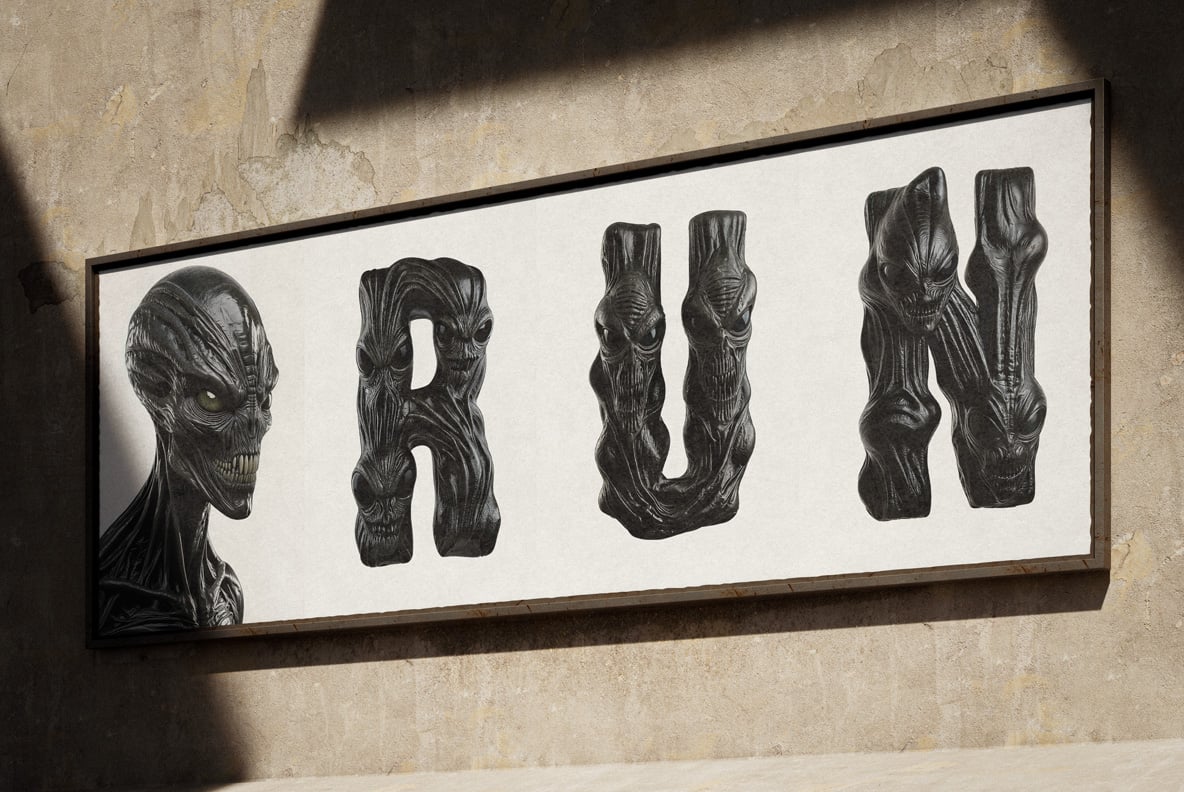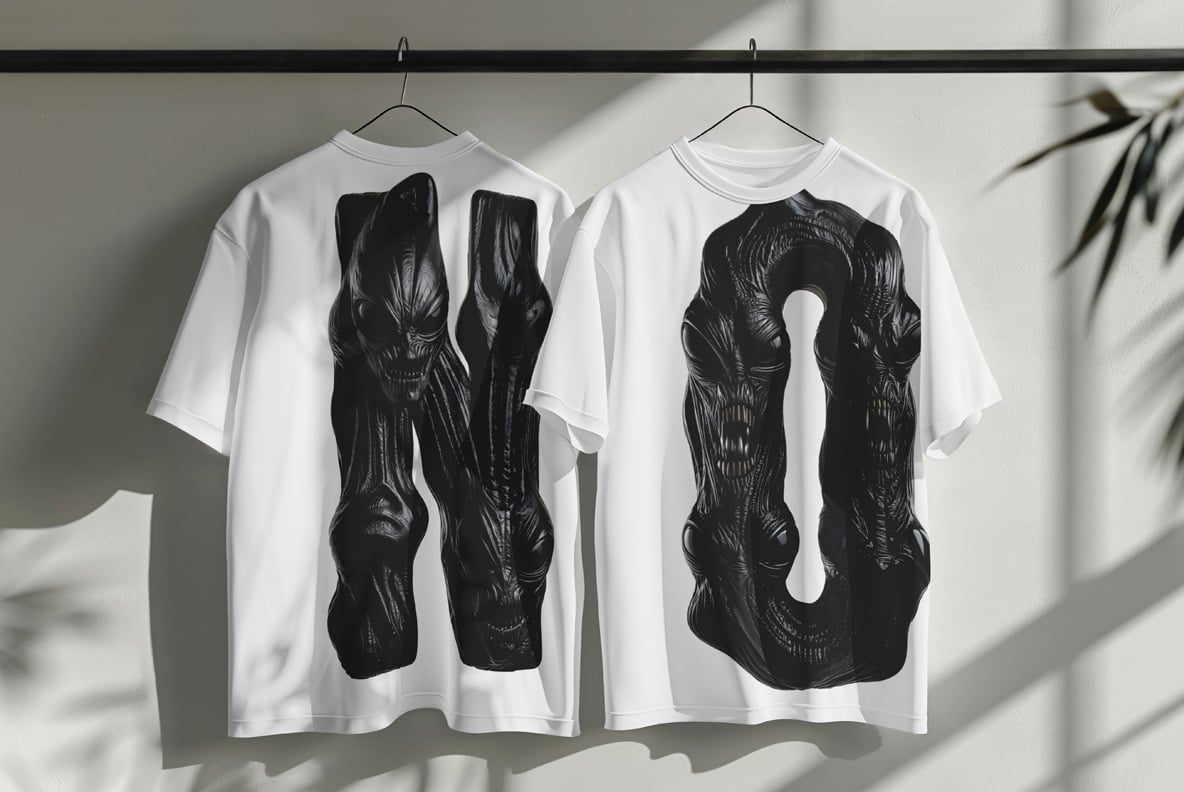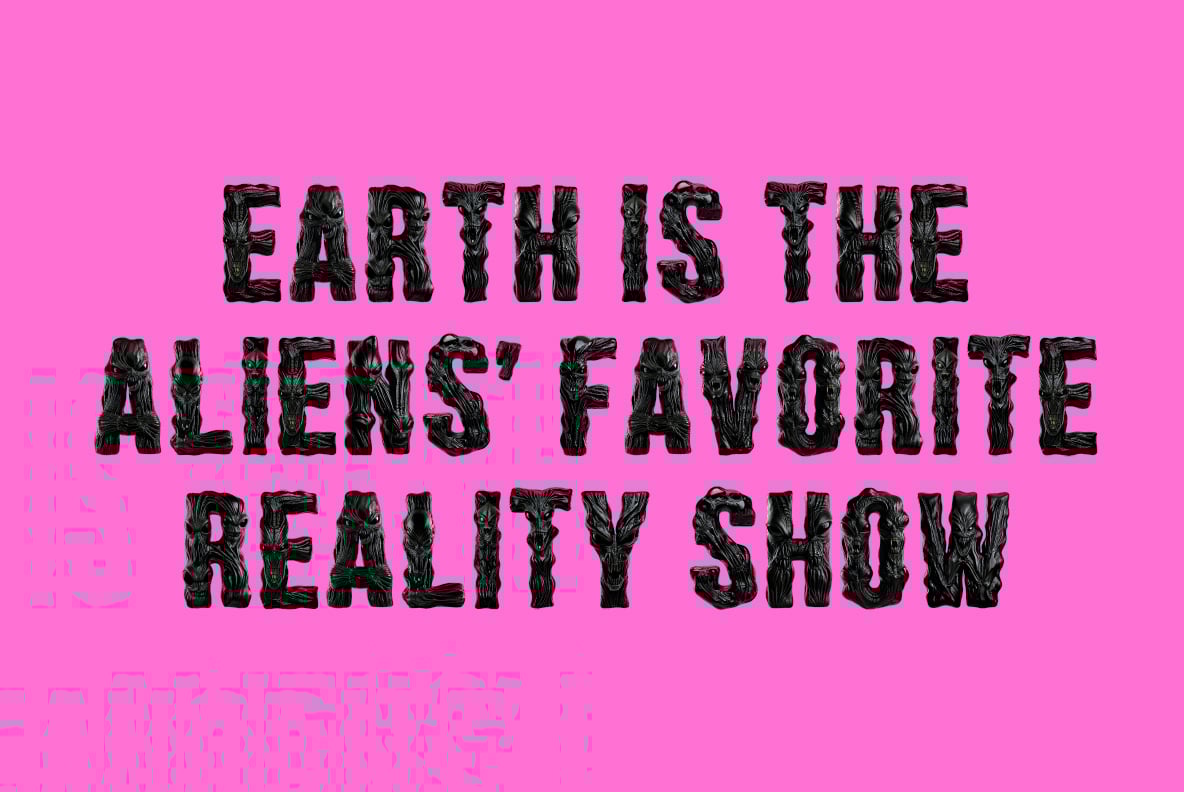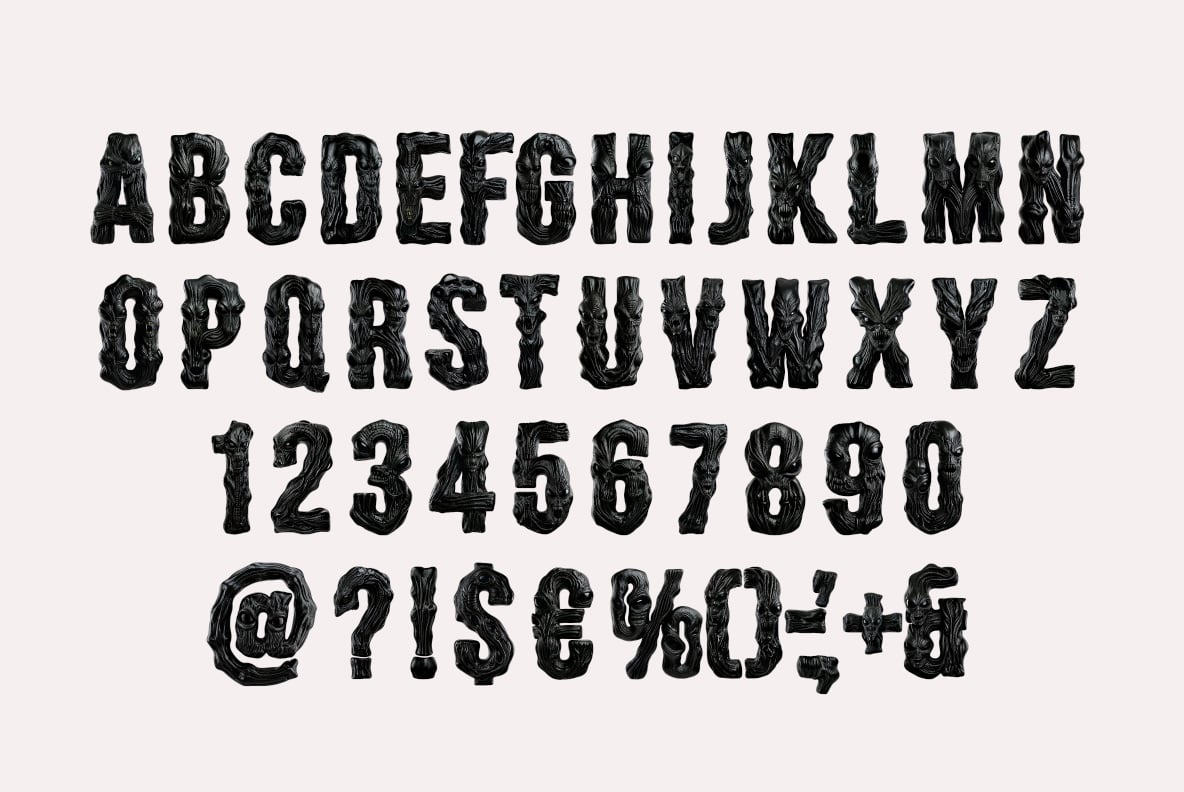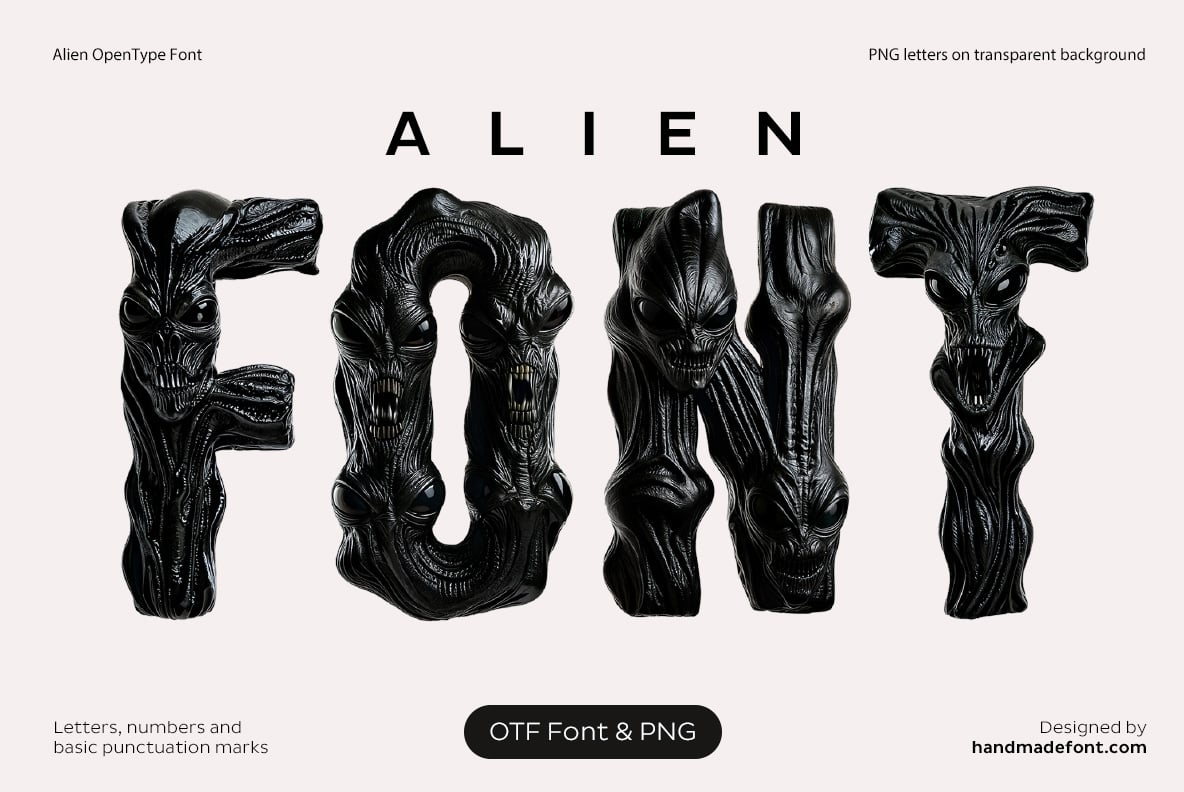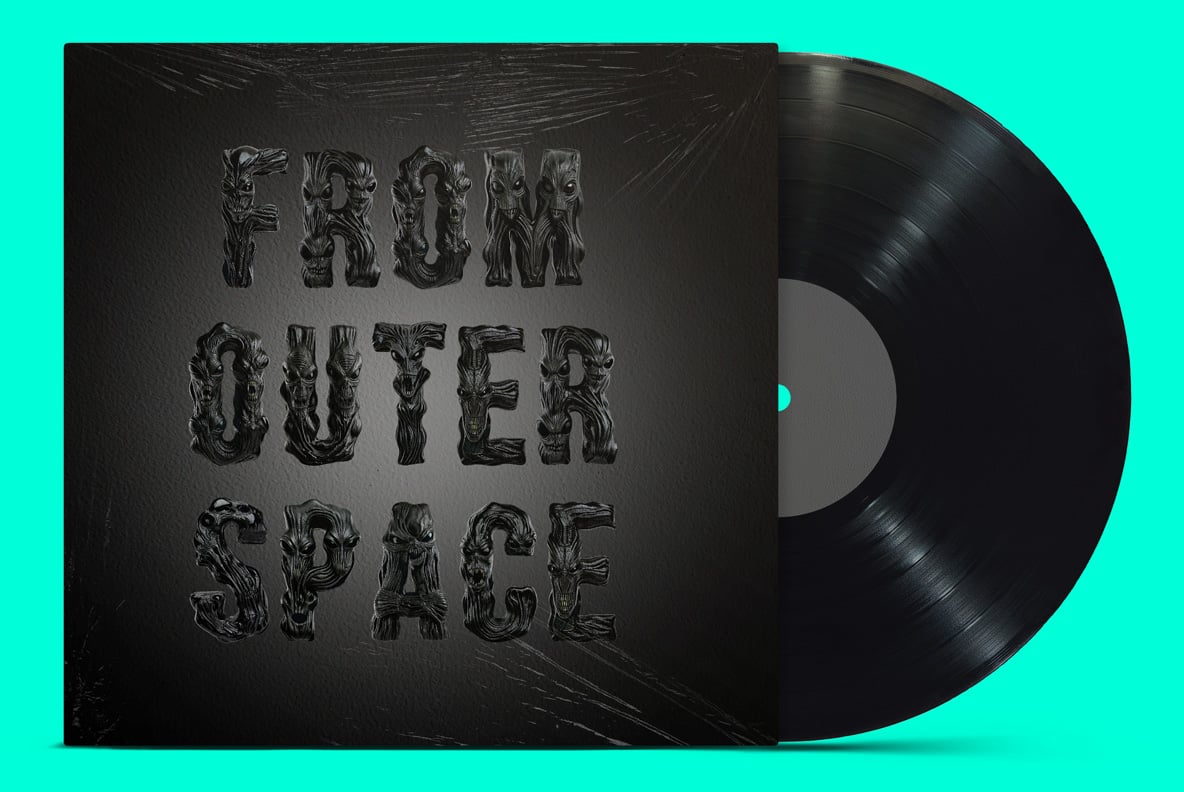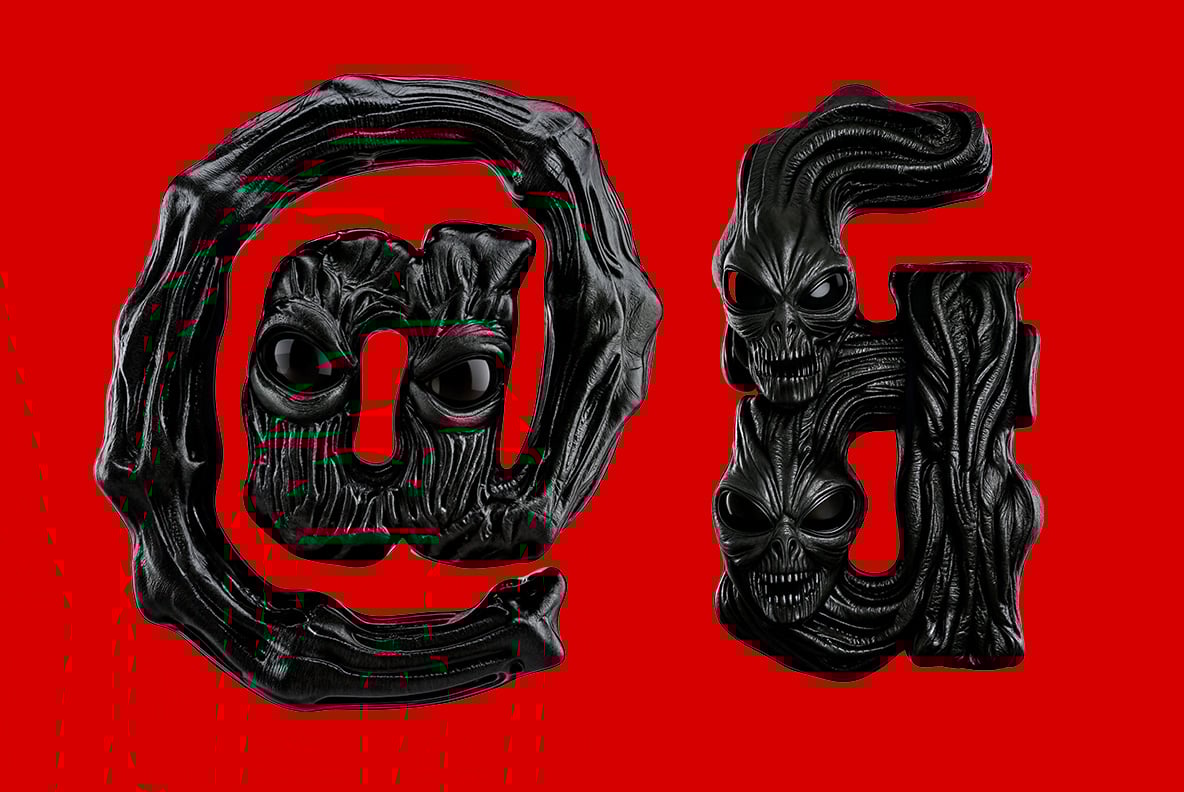
Alien Font
Dark, twisted, and utterly otherworldly — the Alien Font creeps straight from the depths of a distant galaxy. Each letter feels alive, sculpted from sinewy, root-like flesh, glaring back with ominous faces, sharp teeth, and menacing eyes. This isn't just alien typography — it's an extraterrestrial experience. Imagine an alphabet abducted by a UFO, then mutated aboard a spaceship into something… cosmically creepy. With a black, glossy finish and an intergalactic snarl, this alien-inspired font is perfect for sci-fi horrors, outer space adventures, or just unsettling your graphic designer. Warning: may cause unidentified chills.